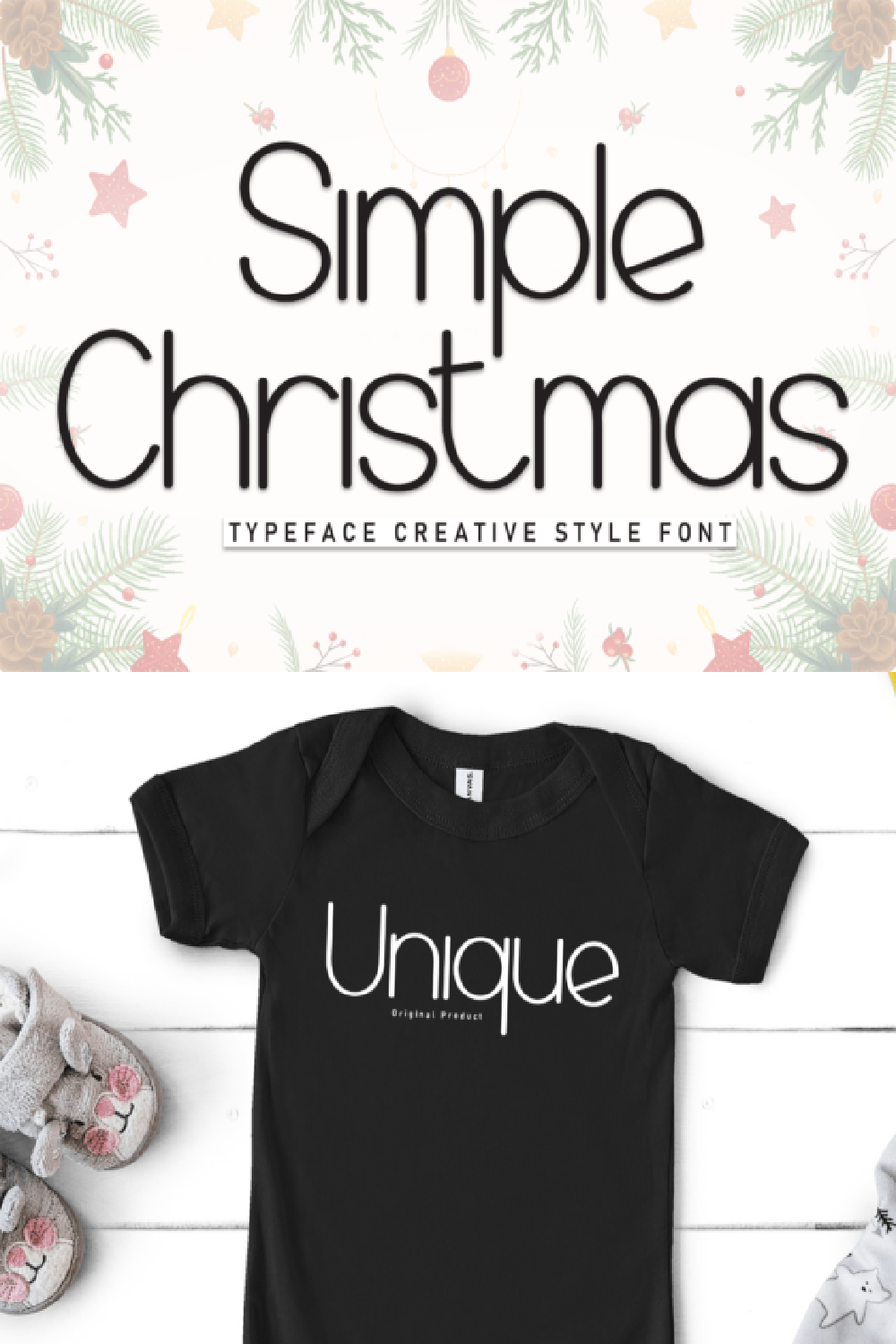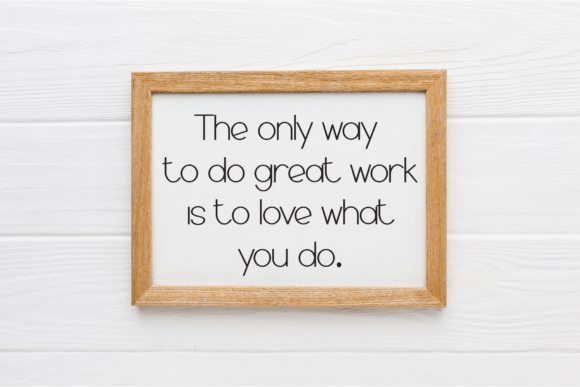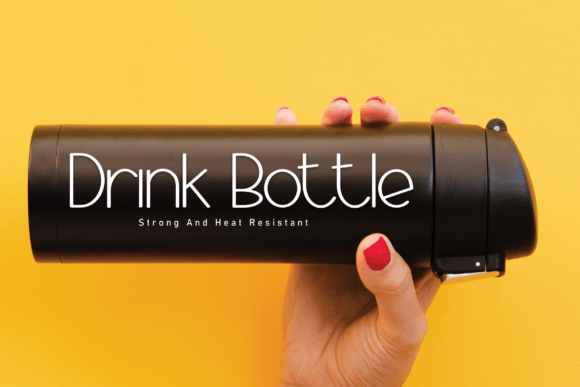
Simple Christmas Font Font
About the Simple Christmas Font Font
Make a bold statement with Simple Christmas Font Font, a powerful and memorable font. Simple Christmas is a creative handwritten typeface. Perfect for creating fun and cheerful greeting cards for birthdays, holidays, and other celebrations.
Simple Christmas Font Font Usage Examples